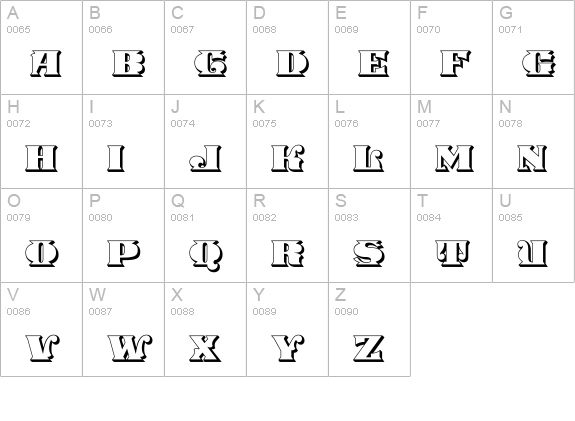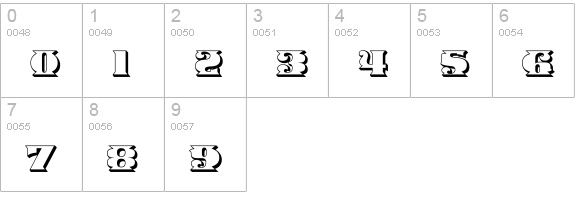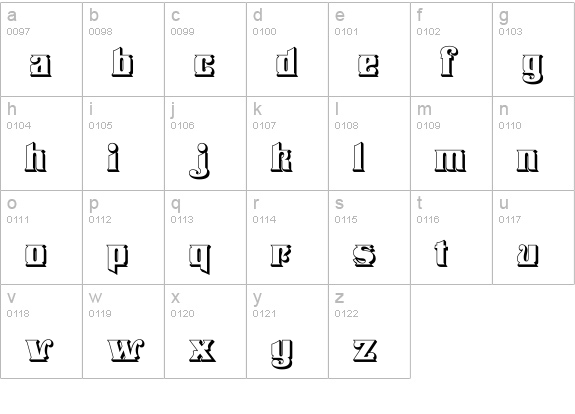
Stampede Open Font Details
Stampede Open is a captivating and versatile font that brings a bold and dynamic presence to any design project. Its strong and commanding letterforms exude energy and power, making it the perfect choice for headlines, logos, and branding materials. This free font showcases a unique blend of elegance and ruggedness, capturing the spirit of adventure and exploration. The carefully crafted letter shapes feature strong serifs and distinct character details, adding a sense of authenticity and personality to your designs. Stampede Open is freely available to download at FontsMarket.com, ensuring that designers and creatives from all walks of life can access and utilize this remarkable typeface. With its wide range of weights and styles, this font allows you to create a visual hierarchy and add emphasis to your content effortlessly. Whether you are designing a poster for an exciting event, crafting a striking logo for a new business venture, or creating eye-catching packaging, Stampede Open will undoubtedly leave a lasting impression. Its versatility and expressive nature make it an ideal choice for projects that require a touch of drama and impact. Embrace the untamed spirit of Stampede Open and let your imagination run wild. Download this free font from FontsMarket.com today and unleash its power in your designs.